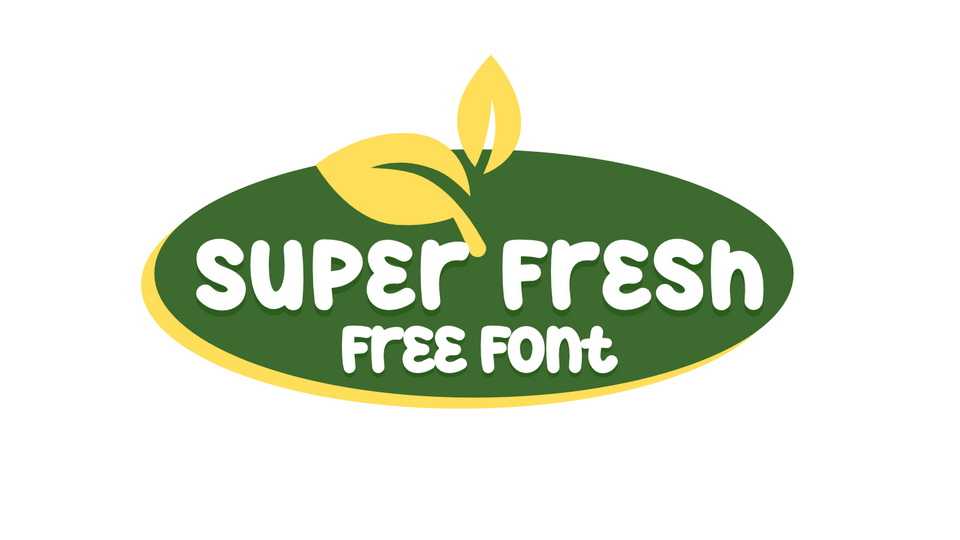
Download Super Fresh font, an organic hand-drawn typeface that captures the free-flowing essence of nature. Super Fresh font embodies the irregularities of organic shapes, providing a natural and hand-crafted aesthetic.